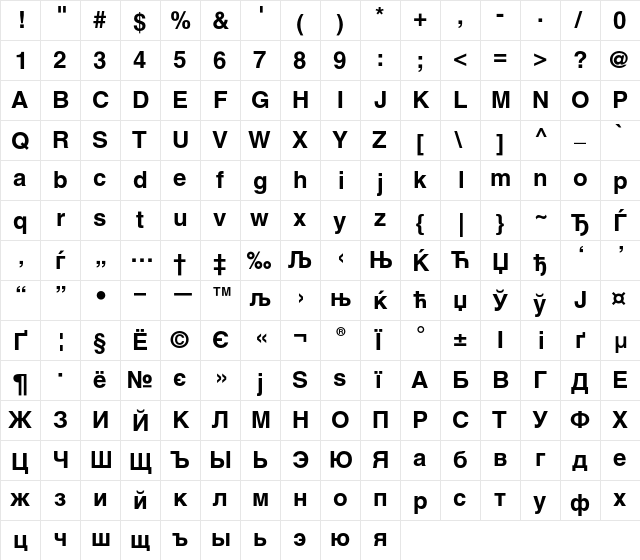
Helvetica Cyrillic Bold
Design Context for Helvetica Cyrillic Typeface
Helvetica Cyrillic takes a measured approach to typography — its balanced proportions and neutral character make it a reliable workhorse for both digital and print work. The heavy weight commands attention and anchors typographic hierarchies.